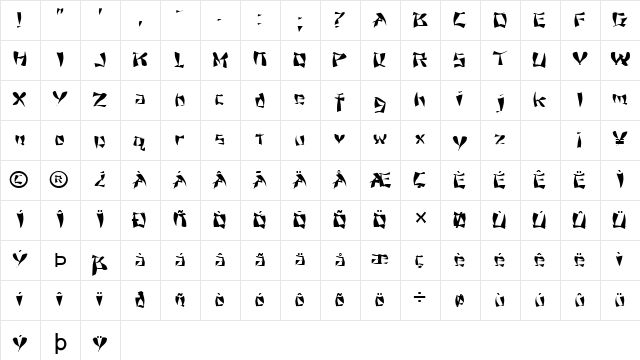
FZ WARPED 11 Normal
Design Context for FZ WARPED 11 Typeface
FZ WARPED 11 is a composed and adaptable typeface that performs quietly and consistently across a wide range of design contexts.